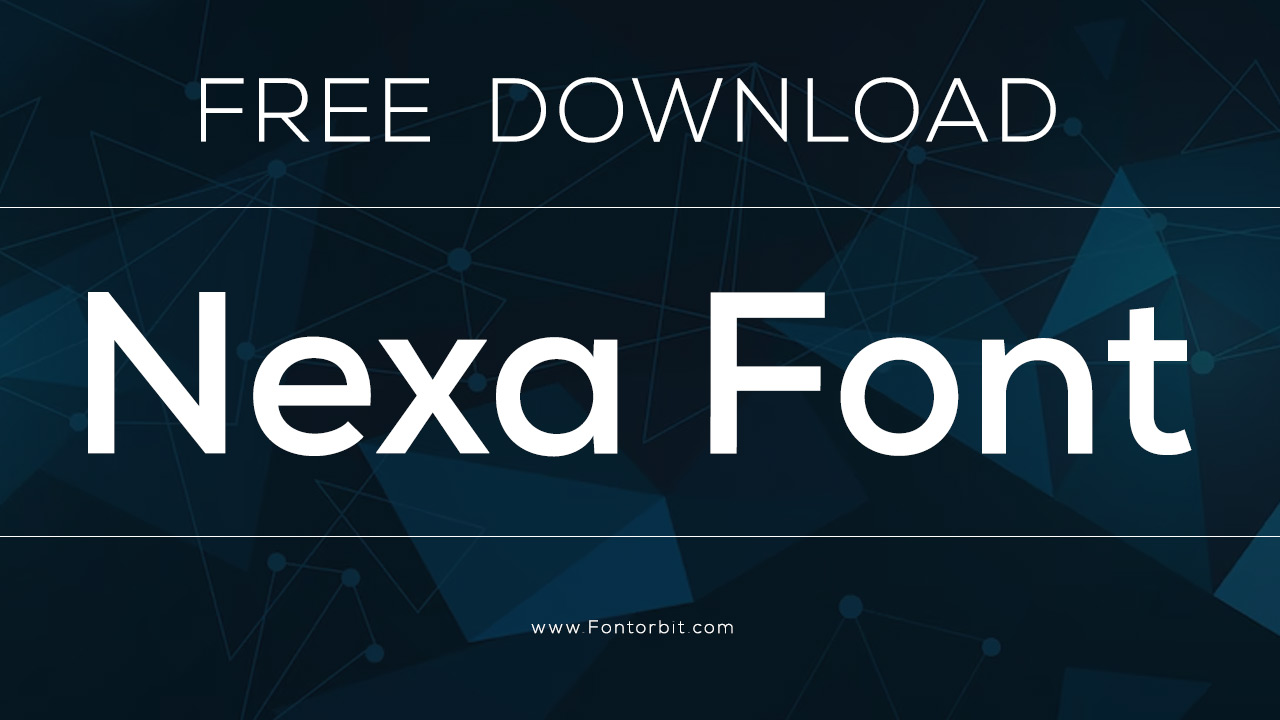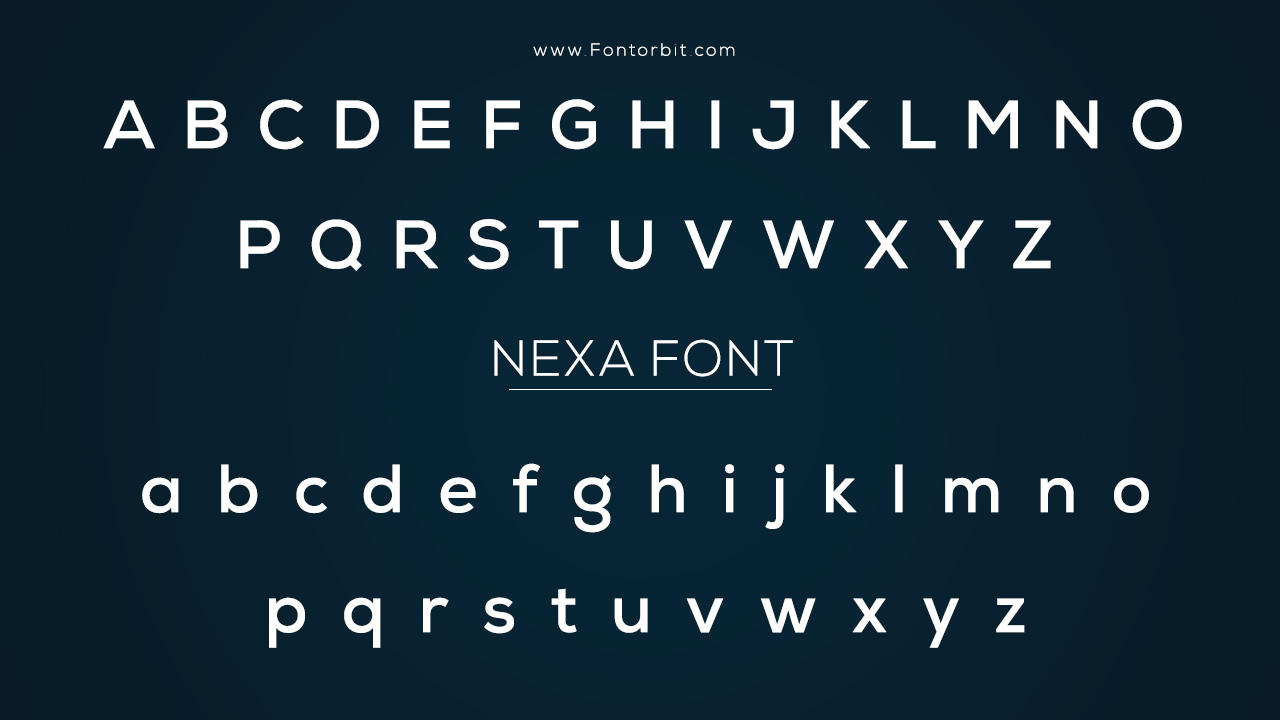
Here is a short introduction: The Nexa Font, designed by Svetoslav Simov and published by Fontfabric LLC, was first released in 2012.
Part of the Nexa Font Family, it is a modern sans serif typeface with exceptional versatility. Popular for its clean and geometric design, Nexa has remained a favorite for designers globally.
Nexa Font Information
| Name | Nexa Font |
|---|---|
| Style | Sans Serif Typeface |
| Designer | Svetoslav Simov |
| Type | Modern Fonts |
Nexa Font Family Includes
The Nexa Font Family comprises 36 fonts, including:
- Nexa Light Font
- Nexa Bold
Where Nexa Font Is In Use
The Nexa Font Family is incredibly versatile and used in a variety of applications:
- Graphic Design: Ideal for posters, branding, and visual media.
- Body Text: Styles like Nexa Regular and Nexa Text Regular are optimized for longer text lengths.
- Printed Materials: Works well on brochures, magazines, and other hardcopy formats.
- Fabrics: Great for clothing and textile designs.
- Web Design: Compatible with platforms like Adobe Fonts and Google Fonts.
- Logos: Used in corporate identity for its clean and bold appearance.
- Posters: Perfect for impactful display use.
Nexa Font Payaring options
Nexa + Libre Franklin:
Nexa (a geometric sans-serif) pairs well with Libre Franklin (a modern serif) due to their contrasting styles. The sharp, clean lines of Nexa blend smoothly with the organic, readable qualities of Libre Franklin. Using Nexa for headings and Libre Franklin for body text helps establish a clear hierarchy.
Nexa + InterFace:
InterFace shares some of Nexa’s geometric features while being more condensed, making them harmonious yet distinct. Both fonts are versatile and work well together in both digital and print designs.
Nexa + Standard:
Standard, a classic serif font, pairs beautifully with the modern and clean Nexa. This combination ensures clarity and legibility while keeping a contemporary feel.
Nexa + Termina:
Termina is a sans-serif font with similar design features to Nexa, yet with slight variation in its curves and structure, ensuring a balanced and unified look without being overly similar.
1.What Is Nexa Font?
Nexa Font is a modern sans serif typeface known for its clean and geometric design.
2.Who Designed Nexa Font?
Nexa Font was designed by Svetoslav Simov and published by Fontfabric LLC.
3.How Many Styles Are In The Nexa Font Family?
The Nexa Font Family includes 36 fonts with various styles and weights.
6.Does Nexa Support Special Characters?
Yes, Nexa includes a wide range of special characters and multilingual support.
7.What Are Nexa’s Best Uses?
Nexa is great for graphic design, posters, body text, and fabrics.
9.Does Nexa Have Matching Italics?
Yes, each weight, including Nexa Bold, Nexa Light, and Nexa Heavy Font, comes with a matching italic.
10.Are There Similar Fonts To Nexa?
Fonts like Ace Sans and Isidora are considered similar to Nexa.